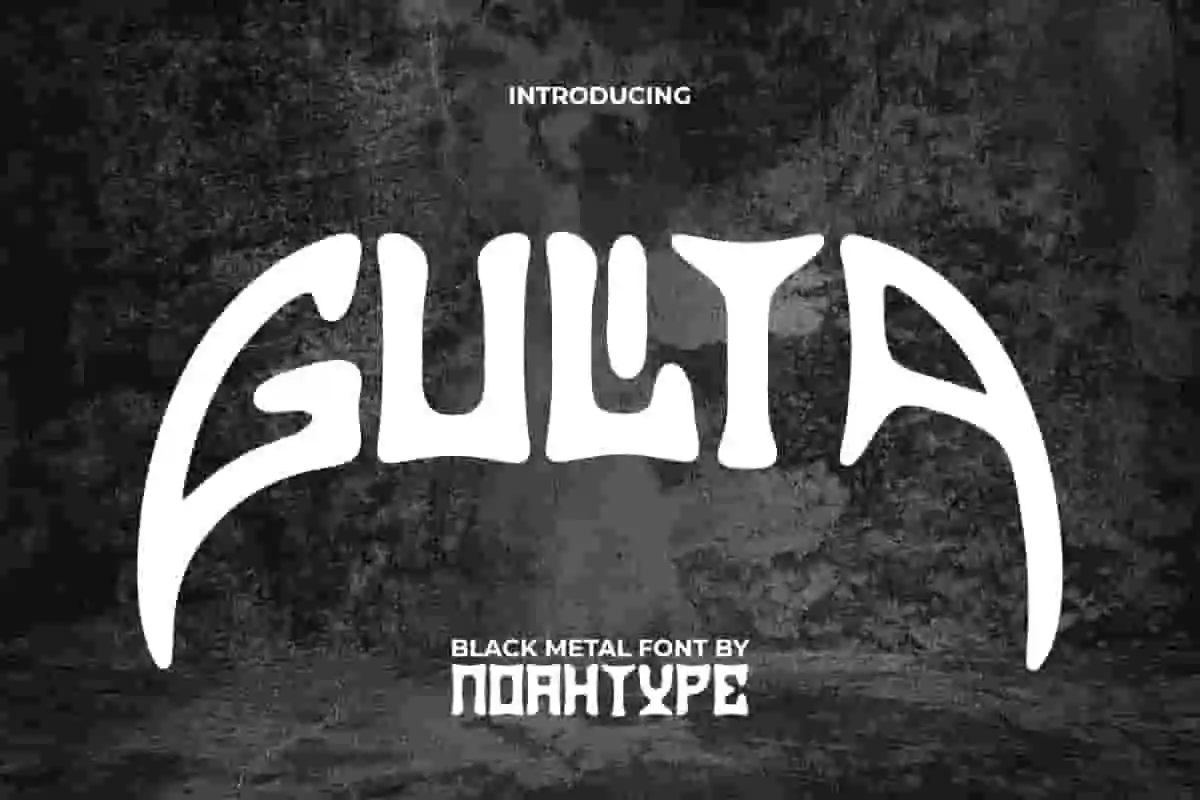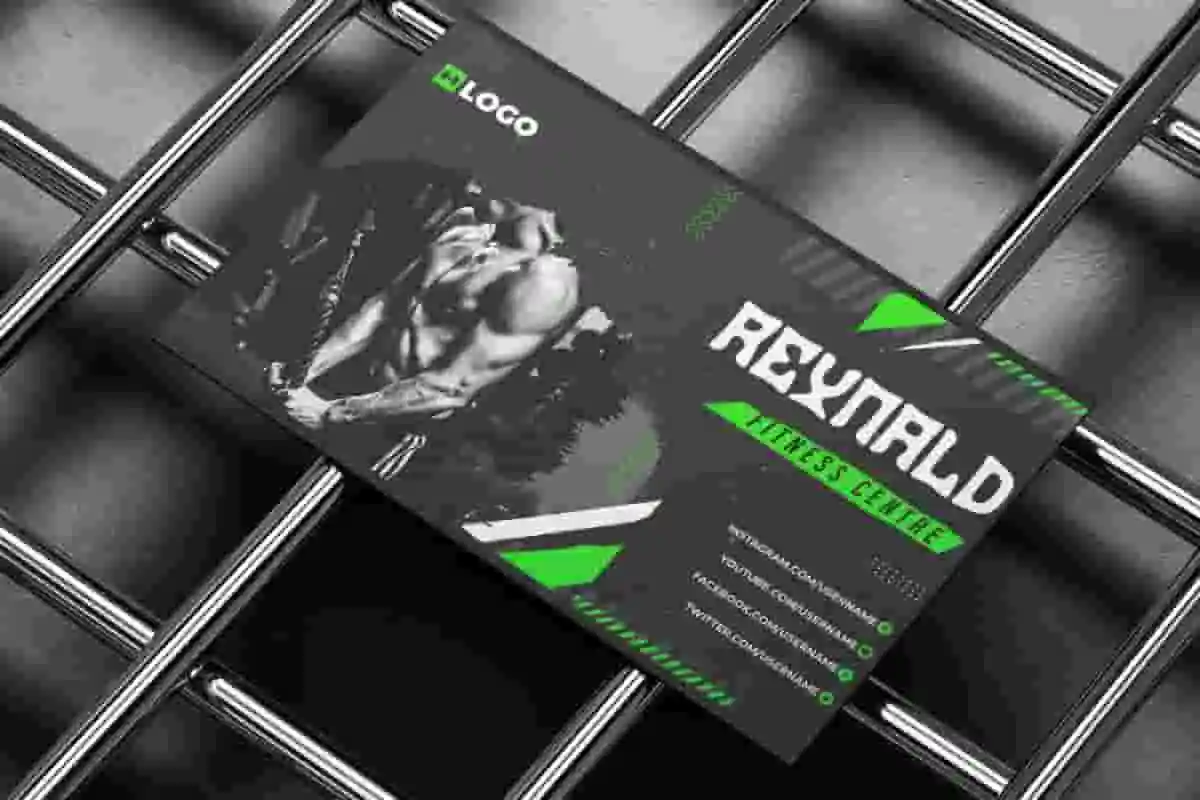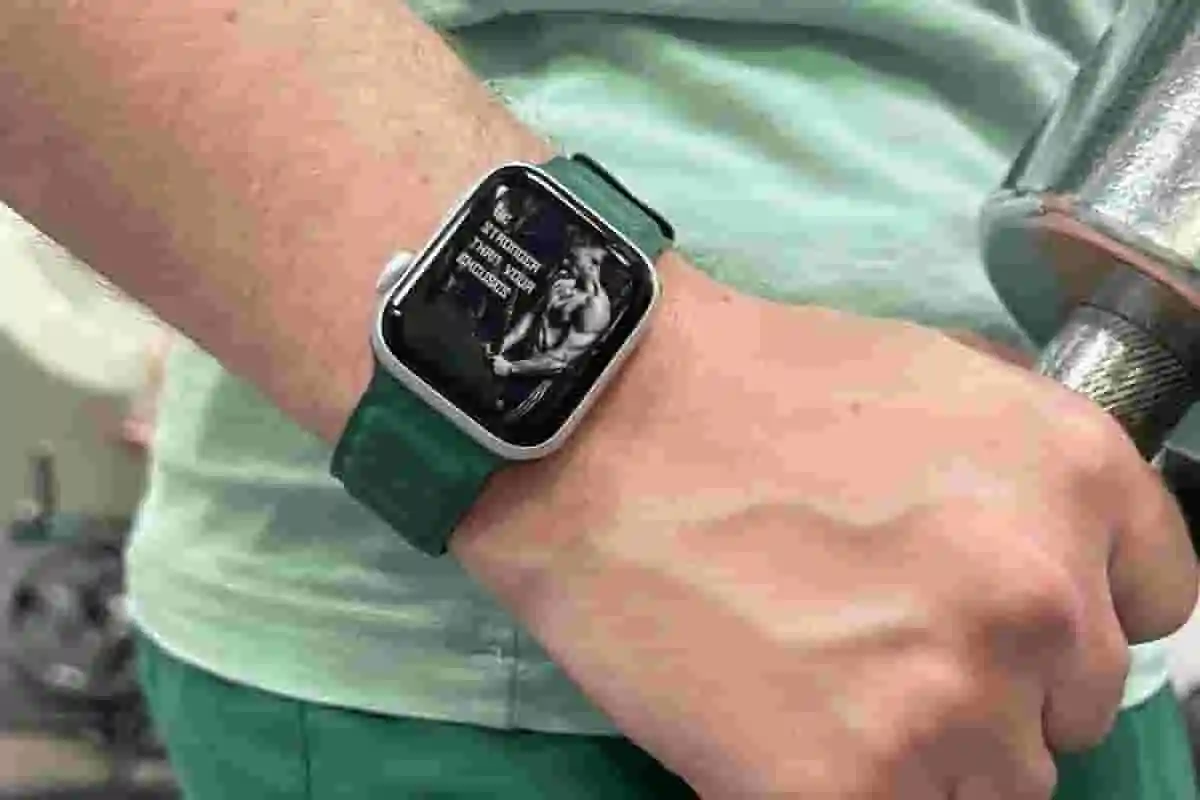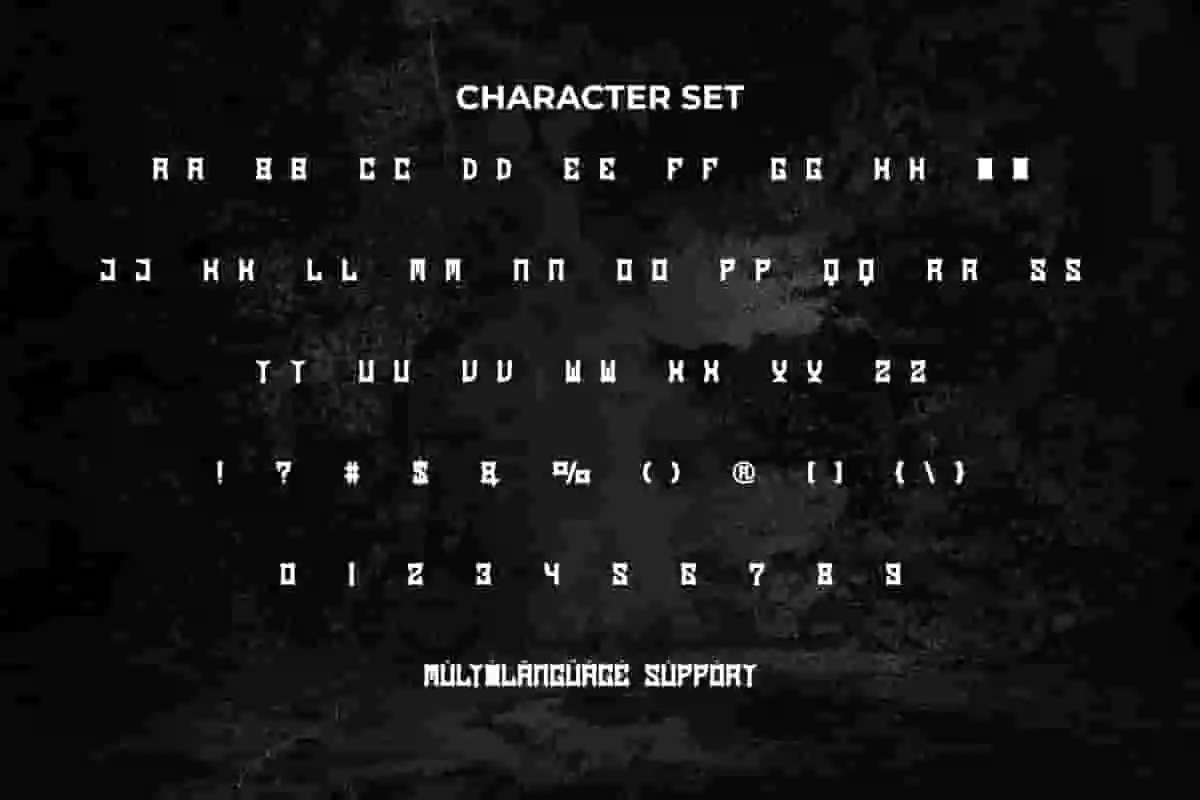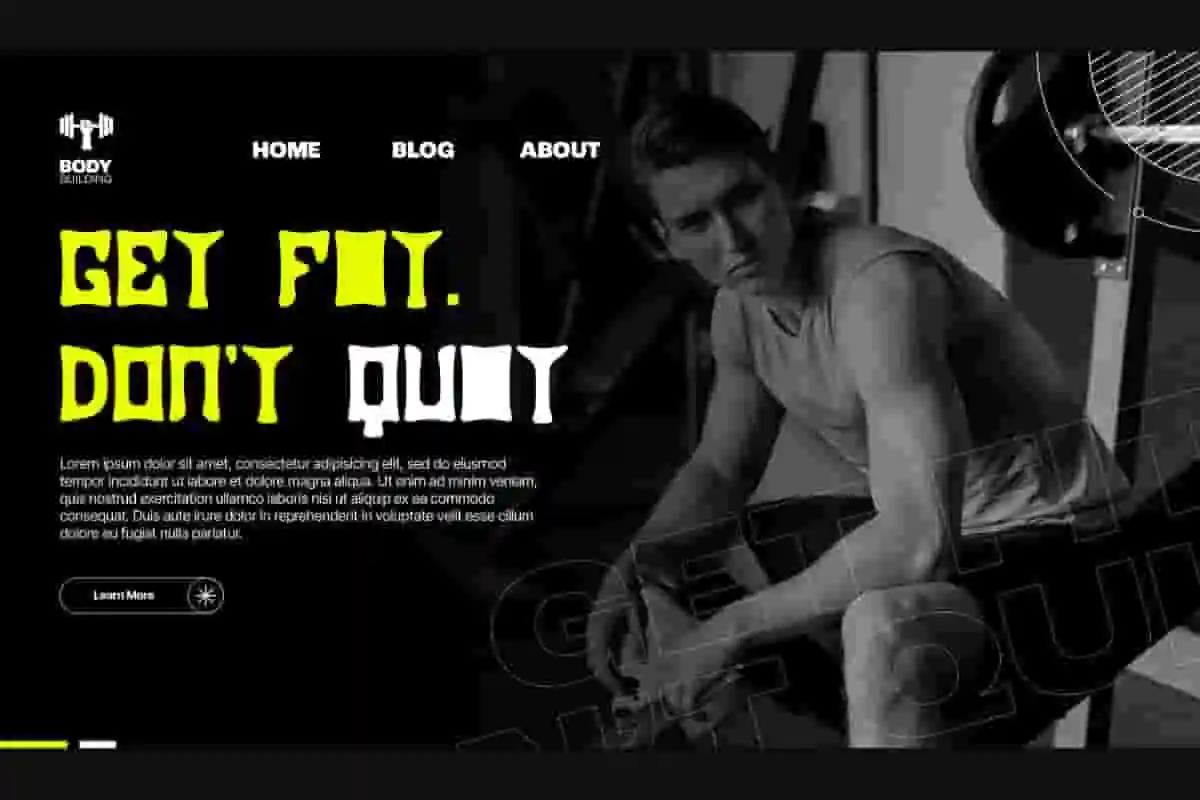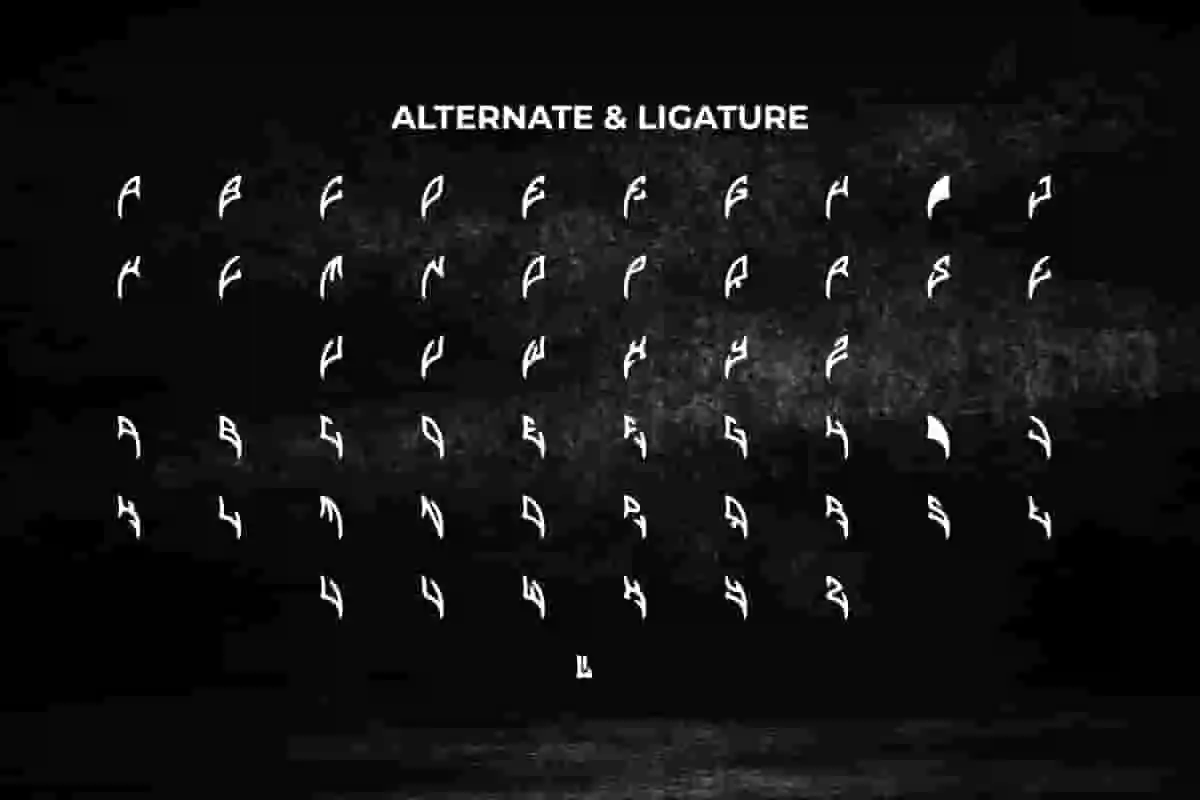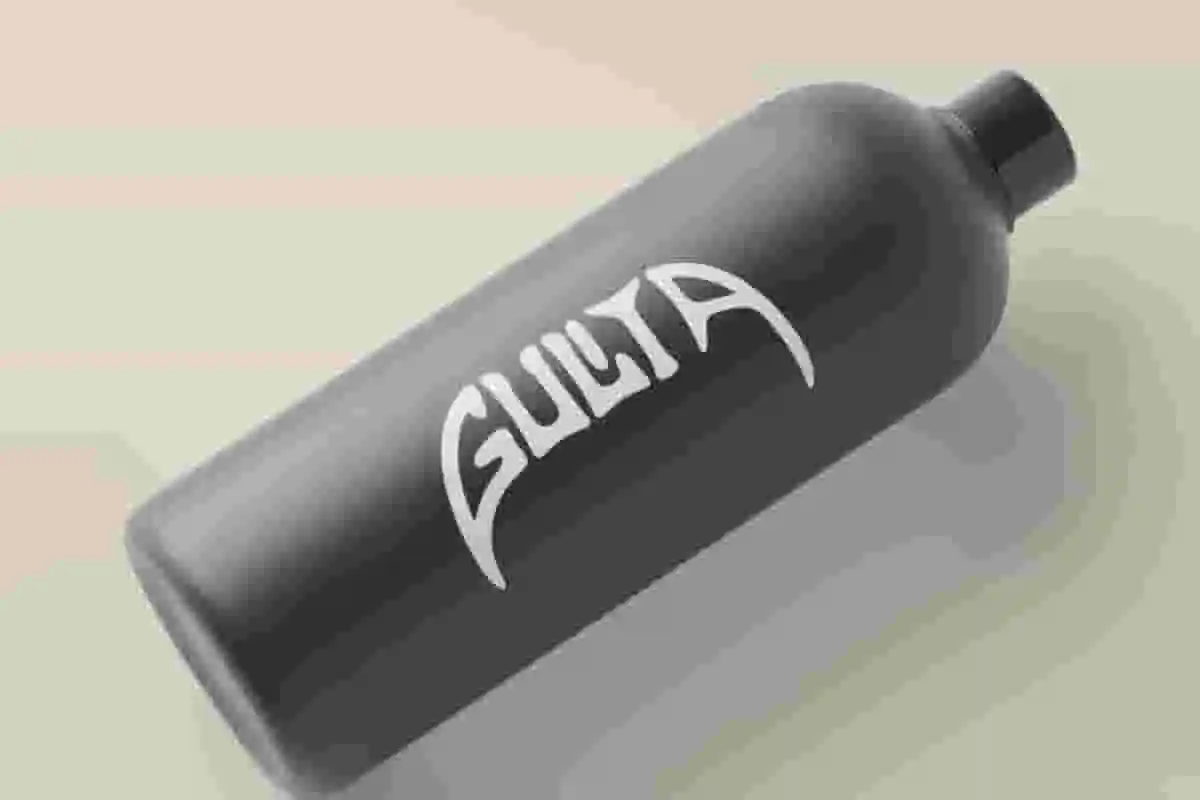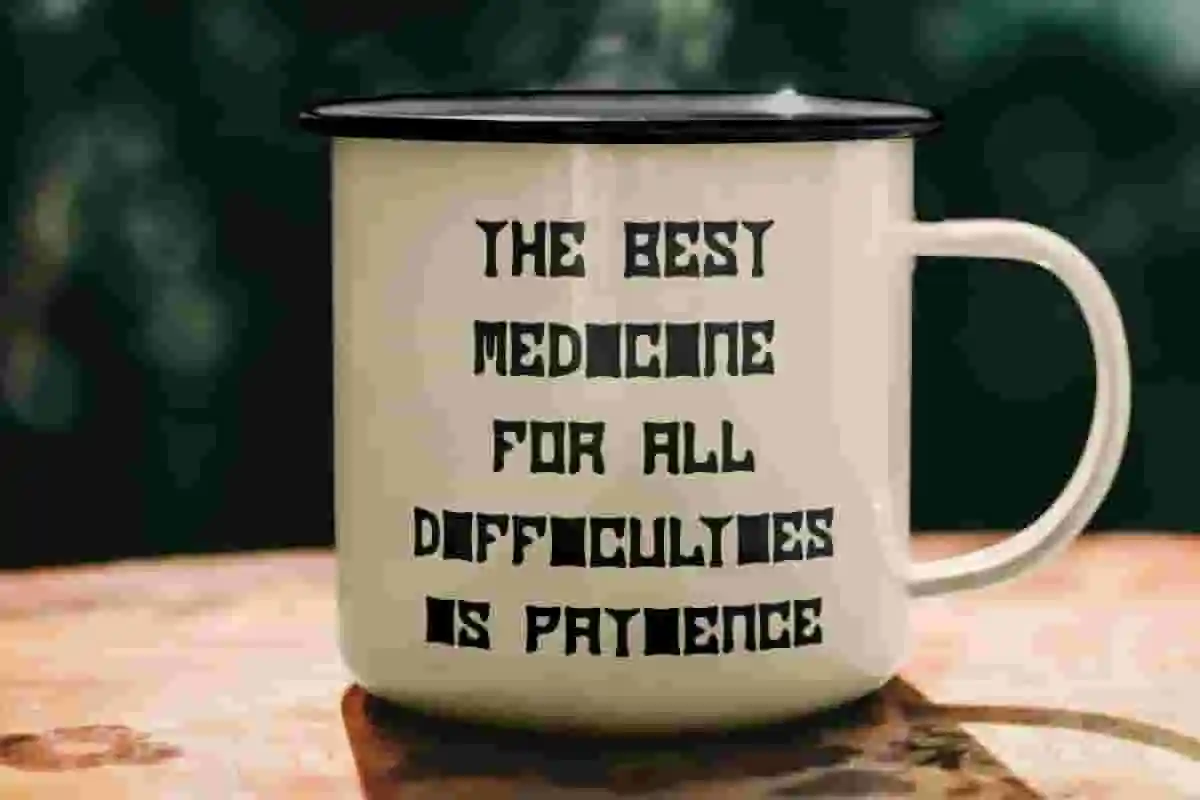
Gulita Font is a distinctive hardcore Black Metal font by NoahType. This font has an unusual shape so it leaves a unique impression on every design created. It will be good for any designs, such as custom design, brand image, poster, label, invitation, cover, marketing material, menu, printing, product packaging, quotes, signage, website, and many more!
Gulita Font includes full set of ALL CAPS for Uppercase and Lowercase Basic Characters, Numerals, Punctuation, Symbol, Alternate and Ligature Characters. This unique font will make your design cool and also a perfect choice for many industries, such as game, movie, comic, music, accessories, advertising, art, café, event or festival, fashion, printing, publishing, etc.